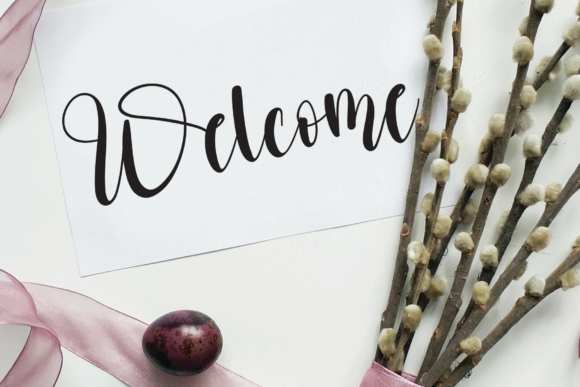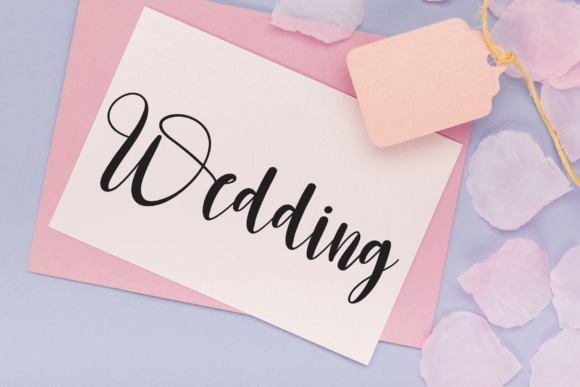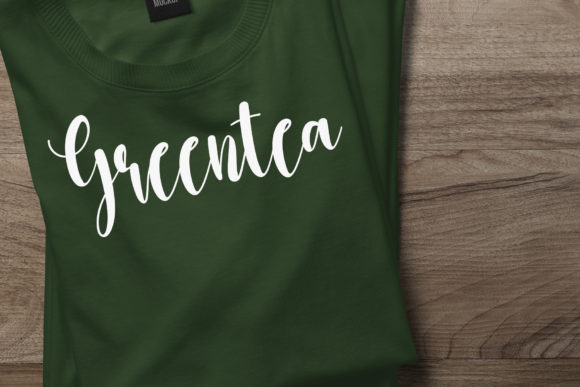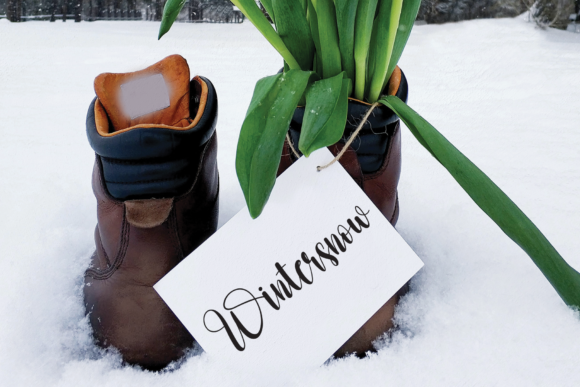
The Art of Elegant Typography: Unveiling the Beauty of Calligraphy Font
Have you ever been sitting at your desk, staring at a blank sheet of paper, trying to come up with the perfect design for a logo or branding project? The words just won’t seem to flow, and you’re left with a sea of blank space staring back at you. It’s moments like these that make you appreciate the beauty of elegant typography, and that’s exactly what Calligraphy Font is all about.
Calligraphy Font is a lovely and timeless handwritten font that’s perfect for creating eye-catching logos, branding, and quotes. Every letter has a unique and beautiful touch, which will make your design come alive. As a designer, you know how important it is to choose the right font to convey the right message, and Calligraphy Font is a valuable addition to any designer’s toolkit.
Calligraphy Font Key Features
- Unique Characteristics: Features intricate and elegant letterforms, ornate flourishes, and subtle texture, making it perfect for creating luxurious and sophisticated designs.
Calligraphy Font Review
Overall, I’d say the Calligraphy Font has some lovely qualities, but also a few limitations that might hold it back from being a top choice for some projects. ✨
- Beautiful, elegant script-style letters that are perfect for wedding invitations, certificates, or other special occasions.
- Wide range of language support, making it a great option for multilingual designs.
- Works well in both digital and print formats, with clear and legible text at various font sizes.
- ⚠️ Can be quite ornate and busy, making it difficult to read in certain contexts (e.g., body text in a long article).
- ⚠️ Limited flexibility in terms of font weights and styles, which might limit its use in more complex designs.
Overall, I think the Calligraphy Font is a lovely choice for projects that require a touch of elegance and sophistication. While it’s not perfect, it’s definitely worth considering for the right kind of design.